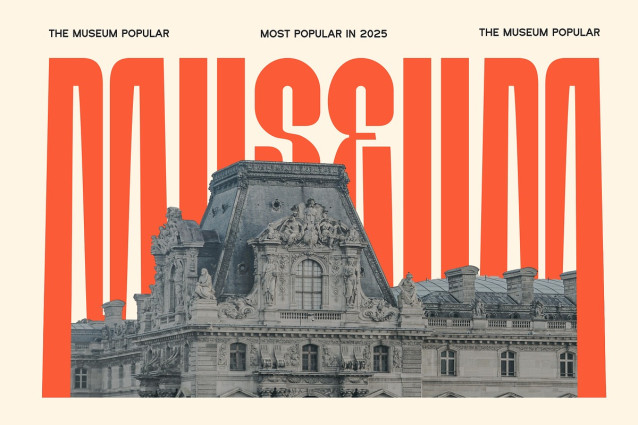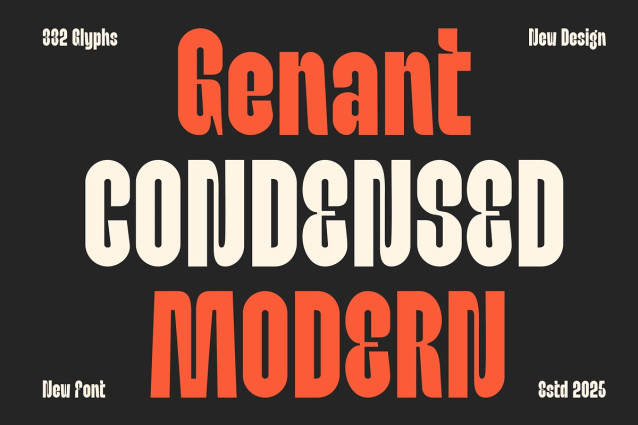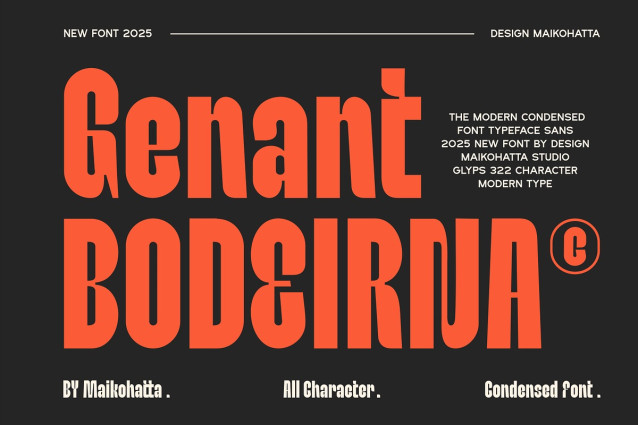
Genant Bodeirna Font
Genant Bodeirna Font – Modern Condensed Typeface. This font is a type of font that is characterized by narrower or slimmer letterforms compared to regular or wide fonts. Condensed fonts are often used in various graphic designs, print materials, and other media because they have distinct advantages and unique characteristics